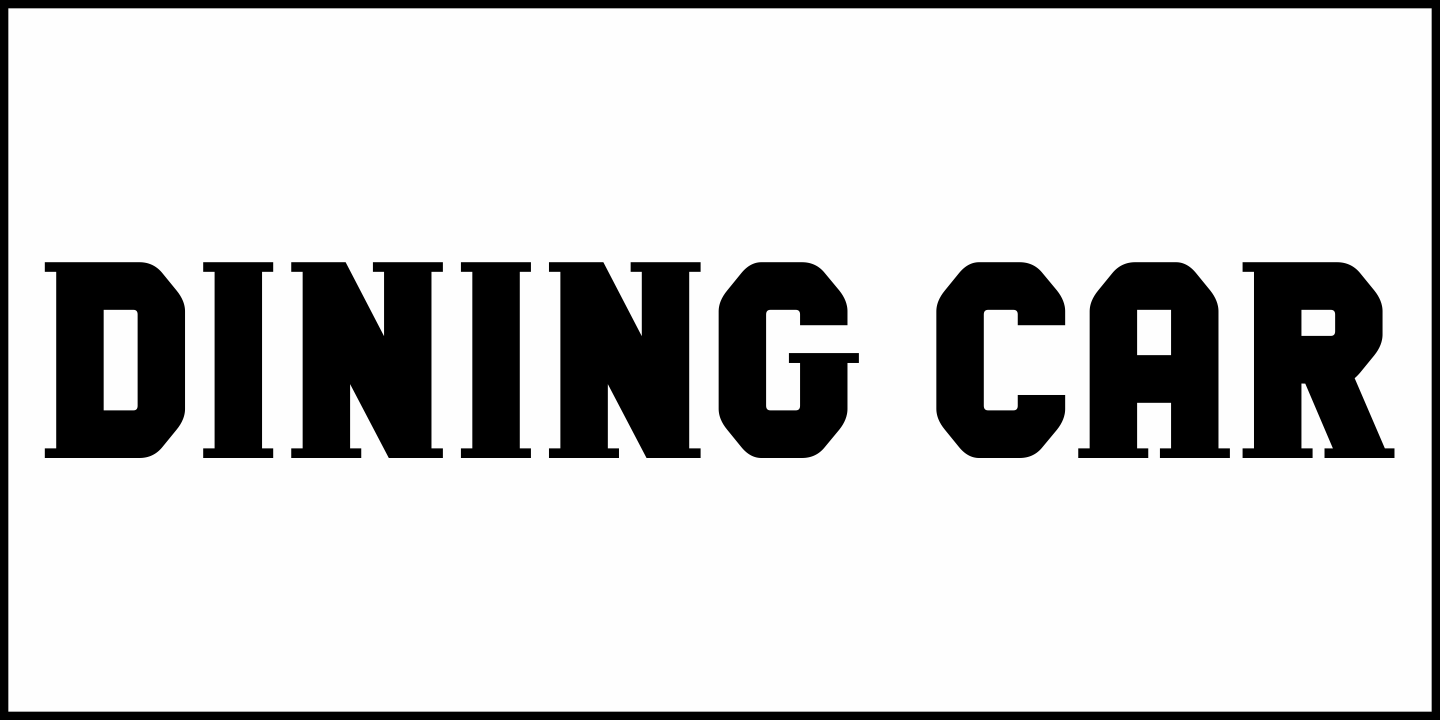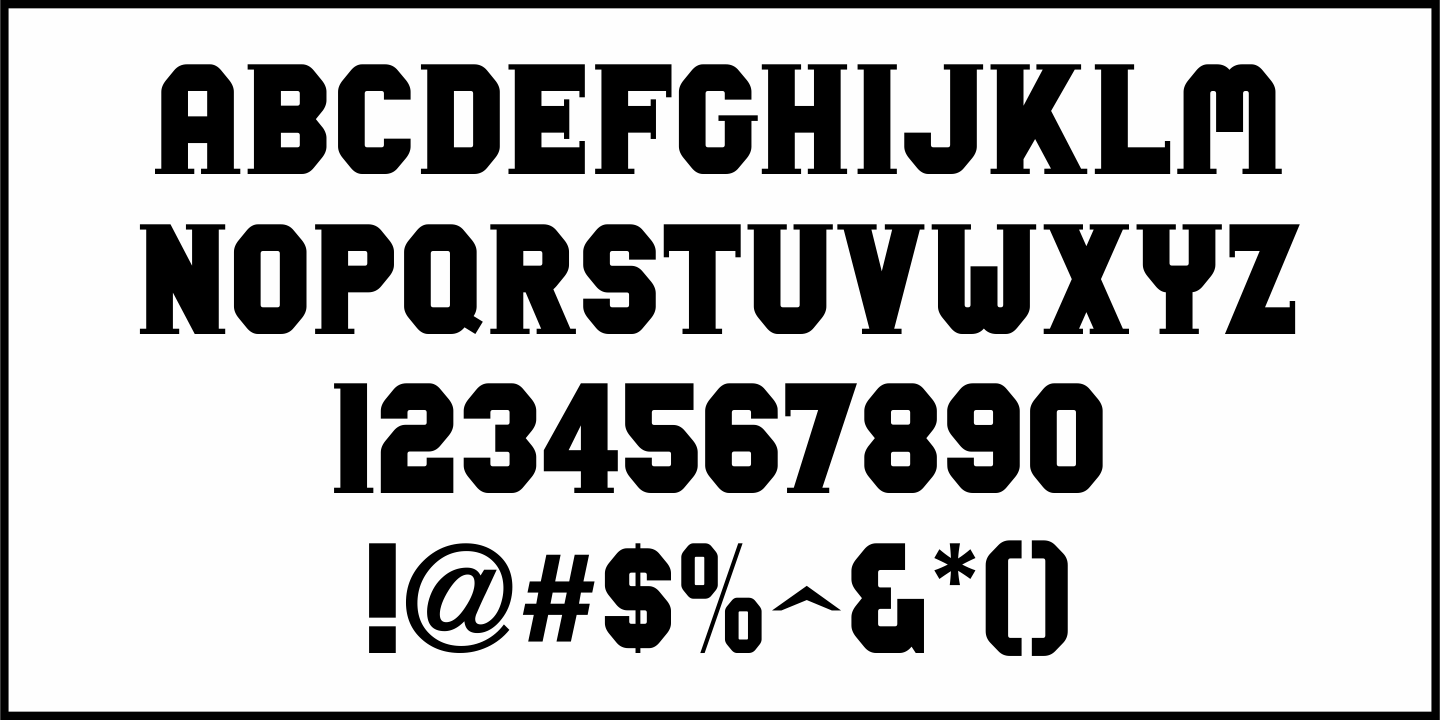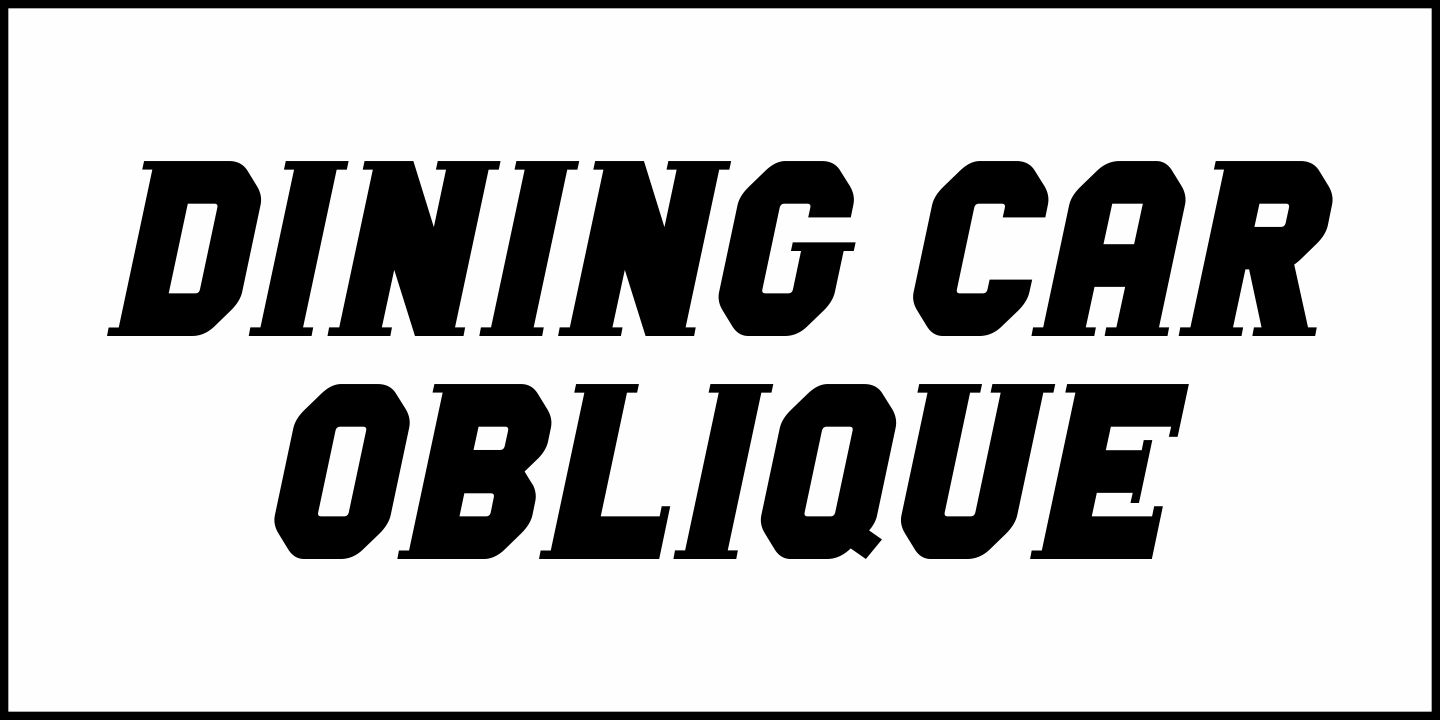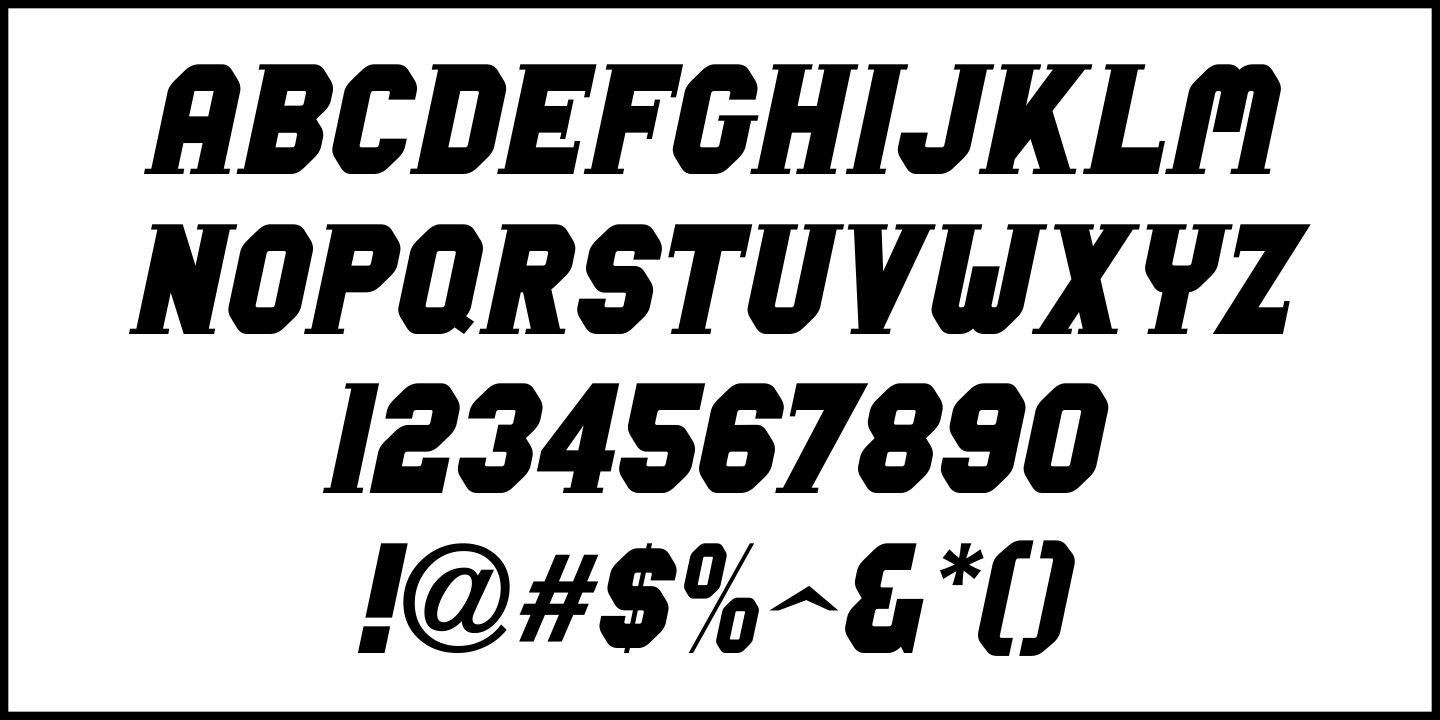
Dining Car
A 1929 German travel poster espoused the benefits of using a sleeping car with the caption 'Wer schlafwagen reist spart zdeit und geld” (which translates to 'Whoever travels in a sleeping car saves time and money”).
Pictured on the poster is a passing train with the name "Mitropa" lettered on the side of a railway car in a bold, stylized font with thin slab serifs.
"Mitropa" was an acronym of 'Mitteleuropa” (German for Central Europe), and was used by a catering company than ran the sleeping and dining cars of numerous German railways for a good portion of the 20th Century.
The lettering was modified and redrawn as Dining Car JNL, which is available in both regular and oblique versions.